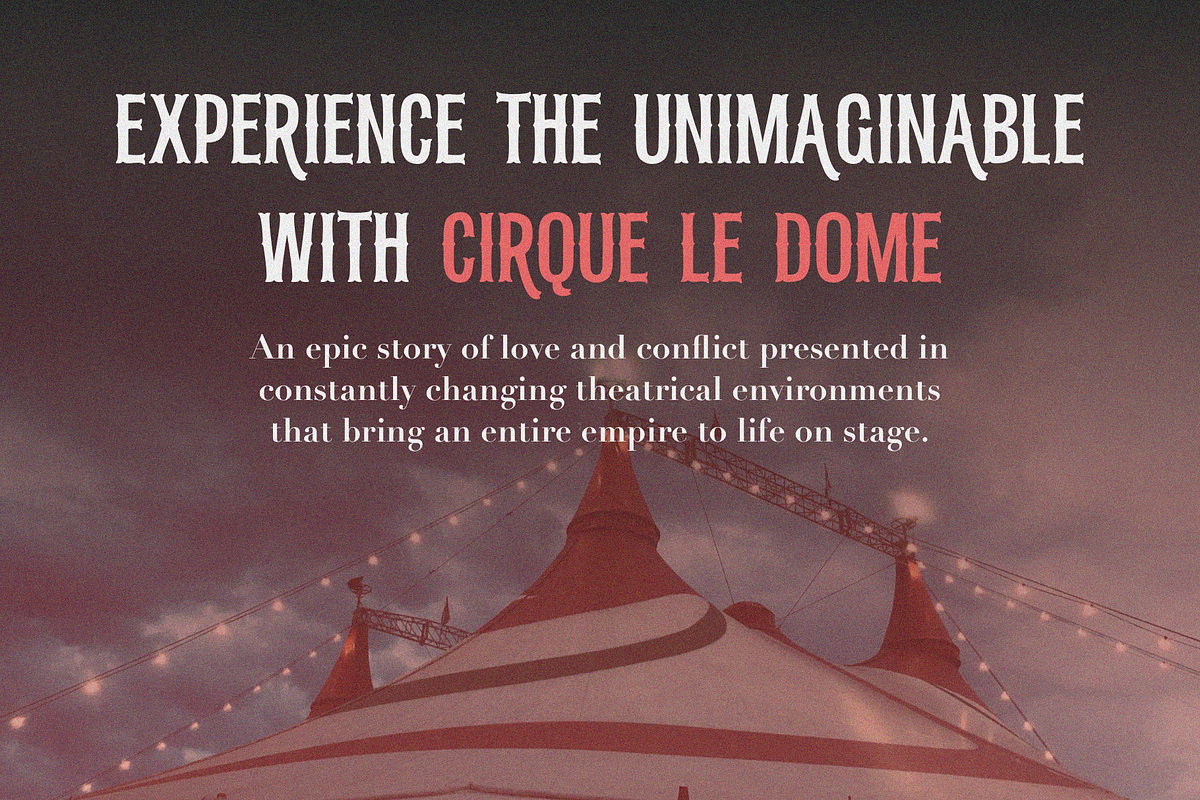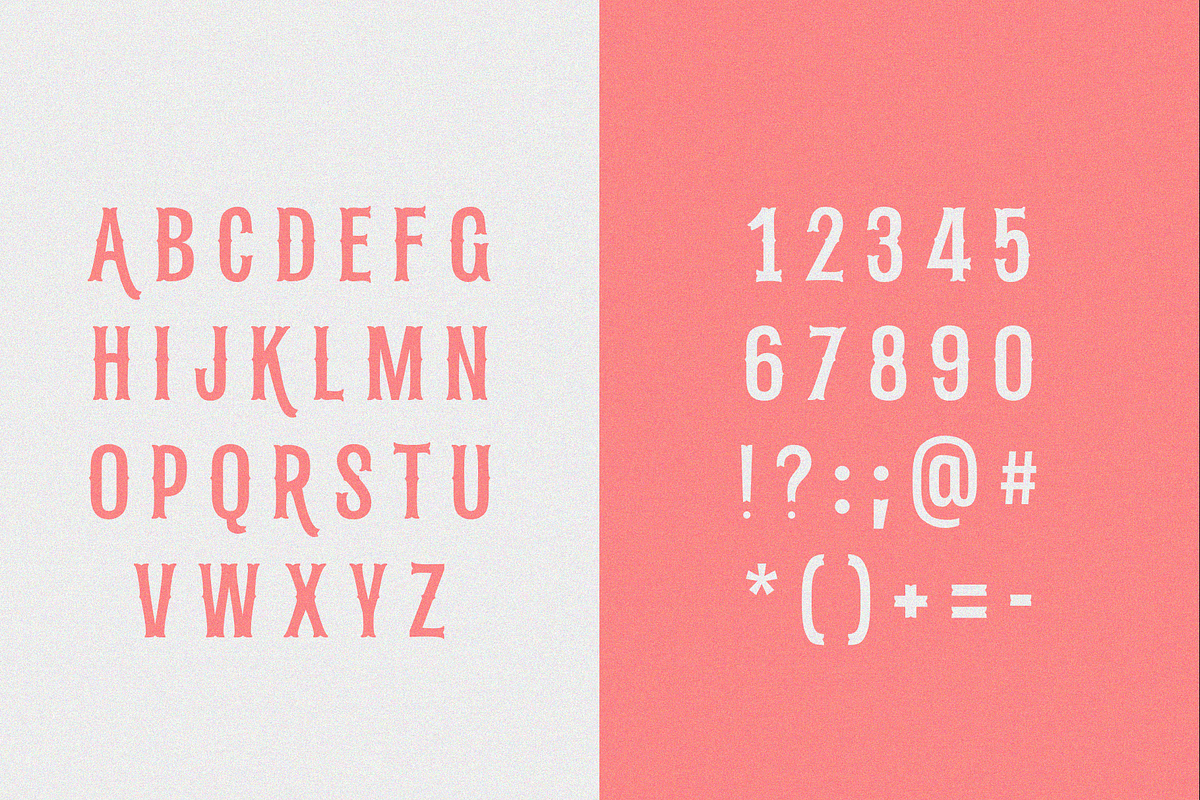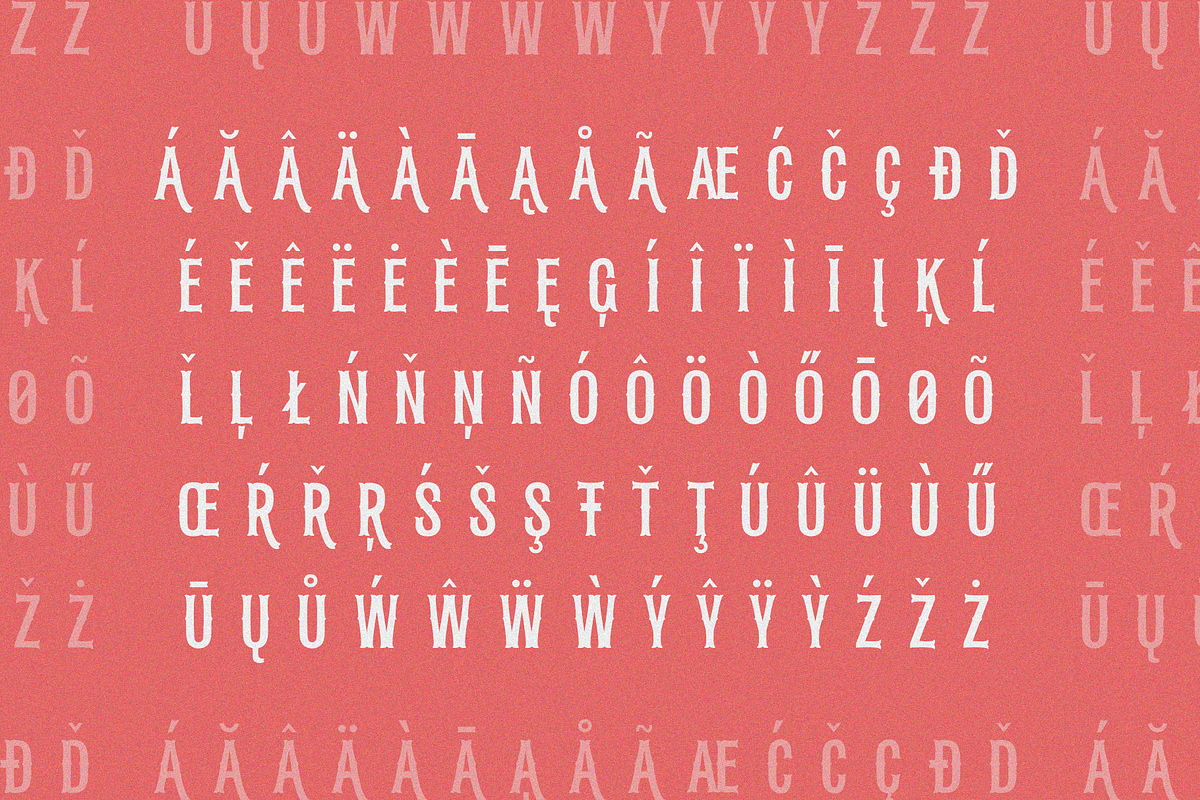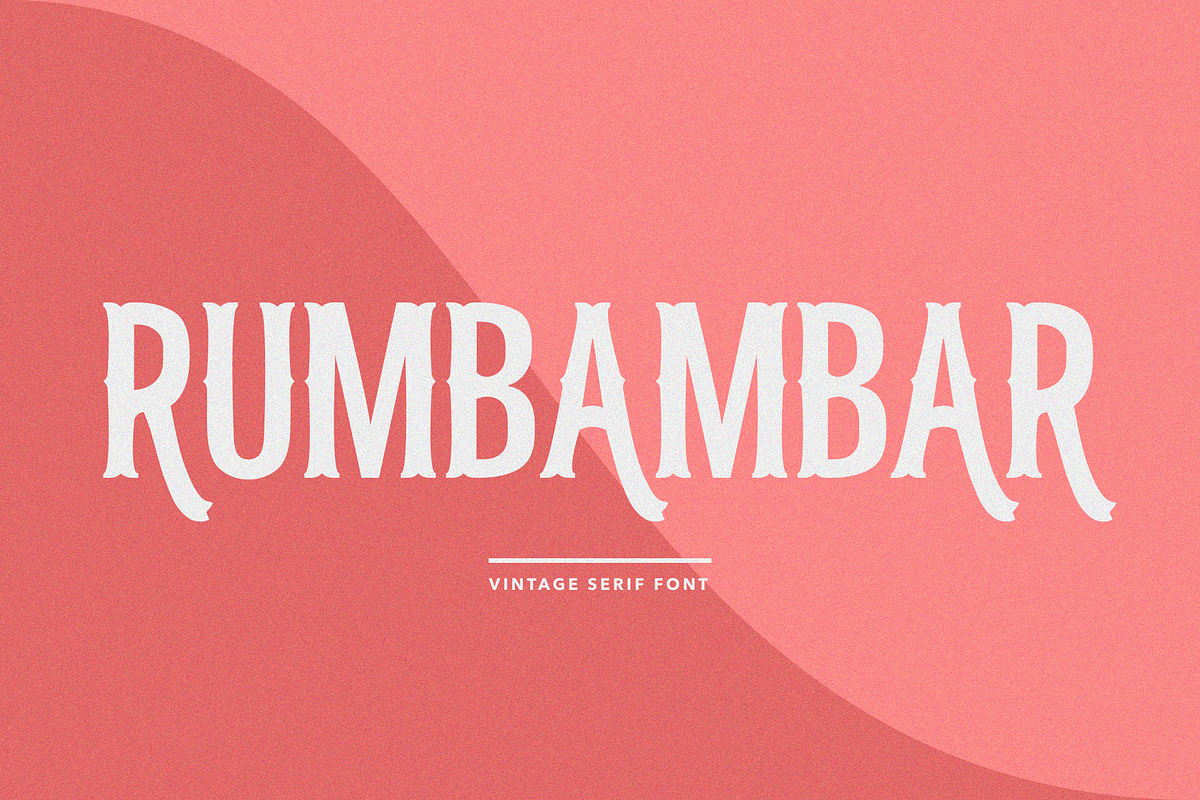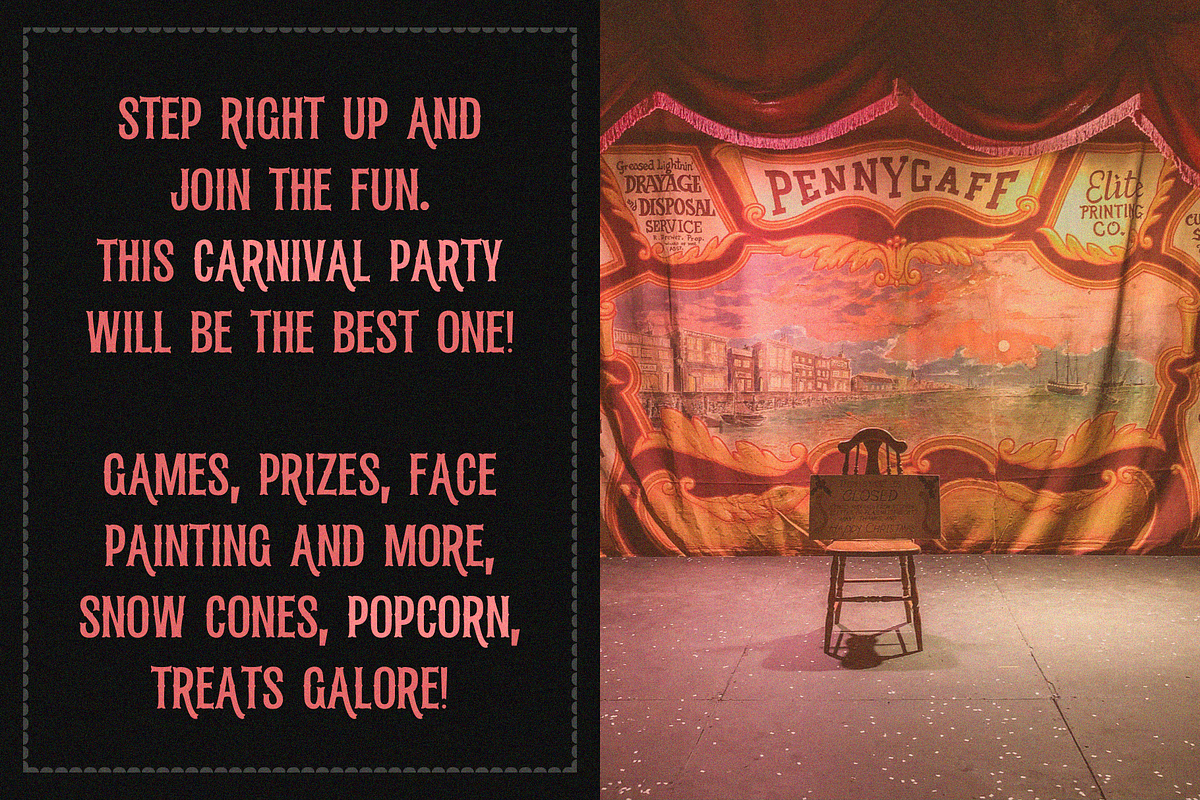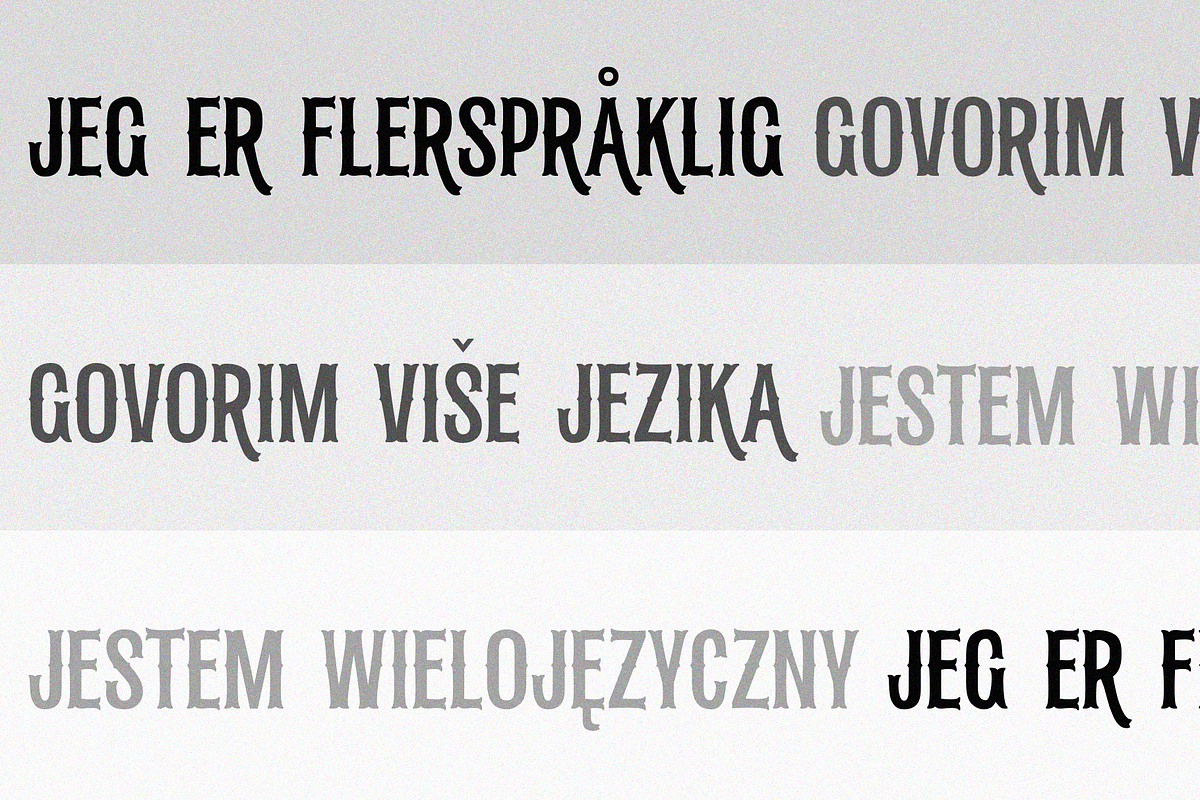
RUMBAMBAR - Vintage Serif Font
Introducing Rumbambar font, a vintage serif font for your design.
The package includes uppercase letters, numerals and large range of punctuation and international characters. This font will perfectly fit various design and corporate needs.